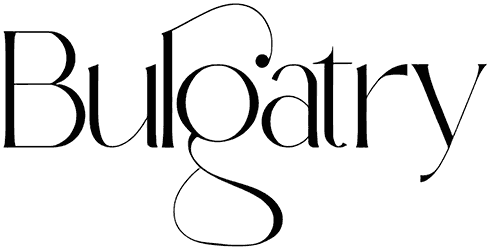
Bulgatry Font
By choosing Bulgatry for your next lettering design, you’re going to owe all the breathtaking elegance radiating from your logos to the chic style of this royal font. There’s just a catch. Instead of numbers, you’ll get a bunch of decorative elements to add some more spark to your typography. Other than that, Bulgatry will provide you with everything you need to promote your high-end brands, such as a spa font for your website logos or business cards for interior design businesses.